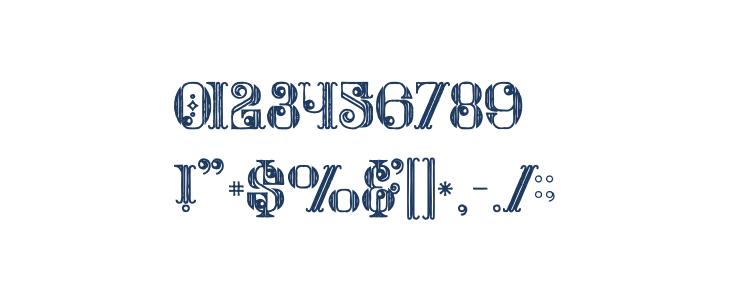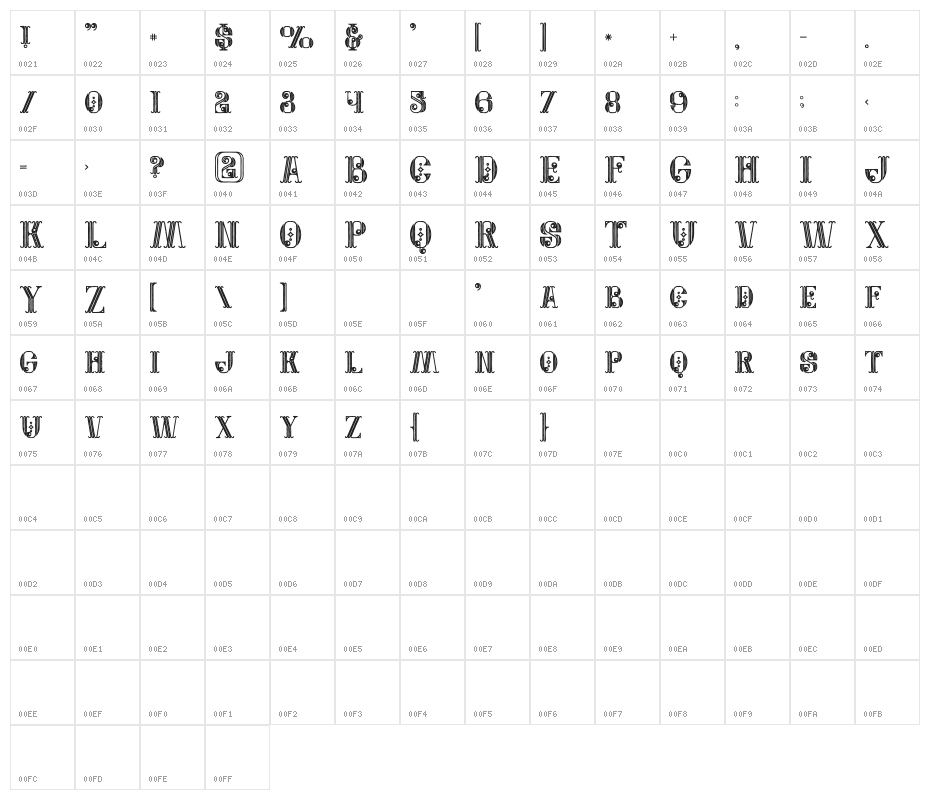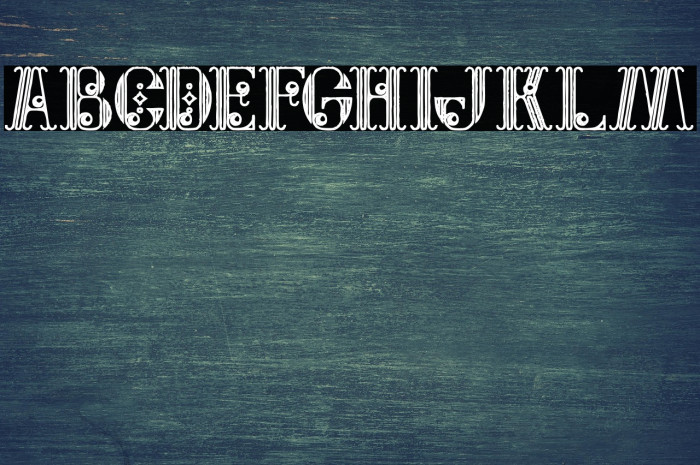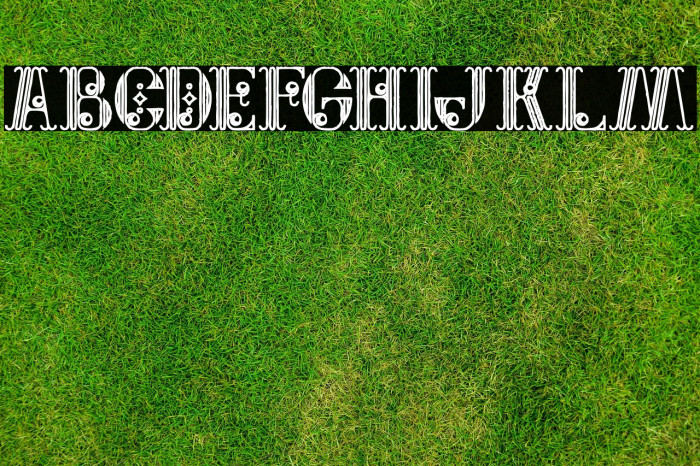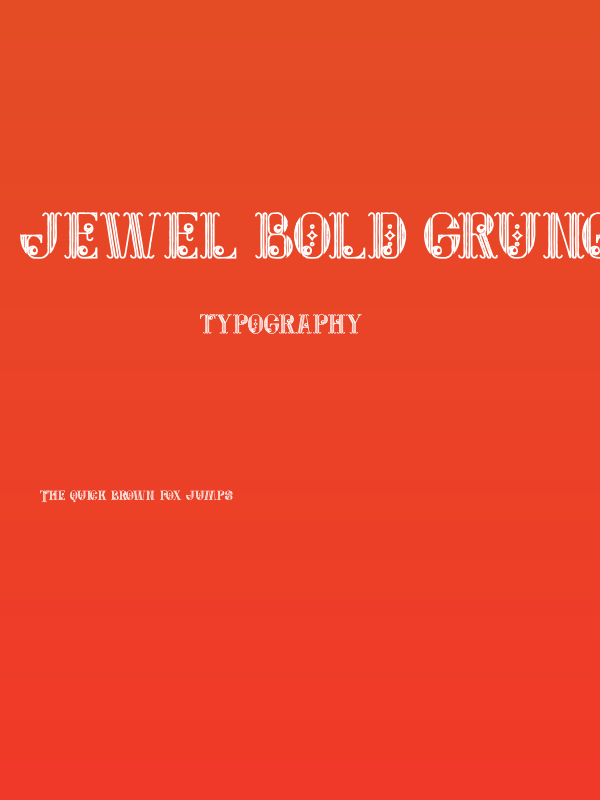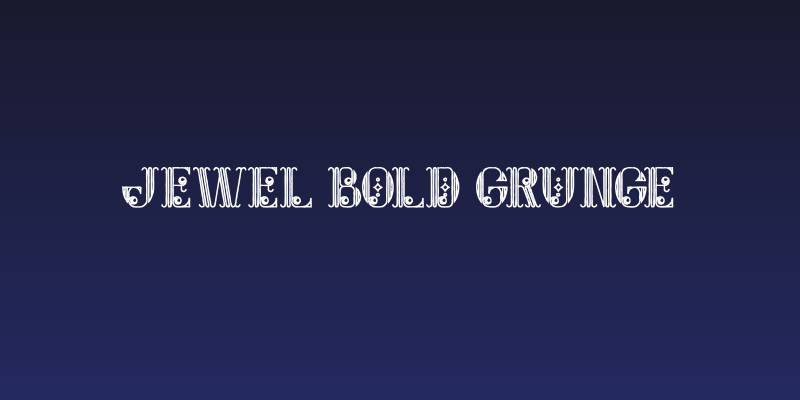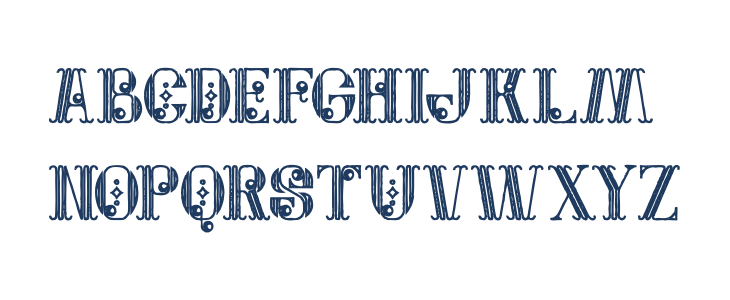
Jewel Bold Grunge Font
Jewel Bold Grunge Description
This font features a bold, decorative style with a grunge aesthetic. Each character is adorned with intricate details, including dots and lines that create a textured appearance. The uppercase letters are particularly striking, with a strong presence and unique embellishments that give the font a vintage yet edgy feel. The numbers and special characters maintain this decorative theme, ensuring consistency across all glyphs. The overall design is eye-catching and would stand out in any creative project.
| Overall Style | Vintage, Decorative |
| Proposed Projects | Ideal for posters, album covers, branding materials, and any project requiring a bold, artistic touch. |